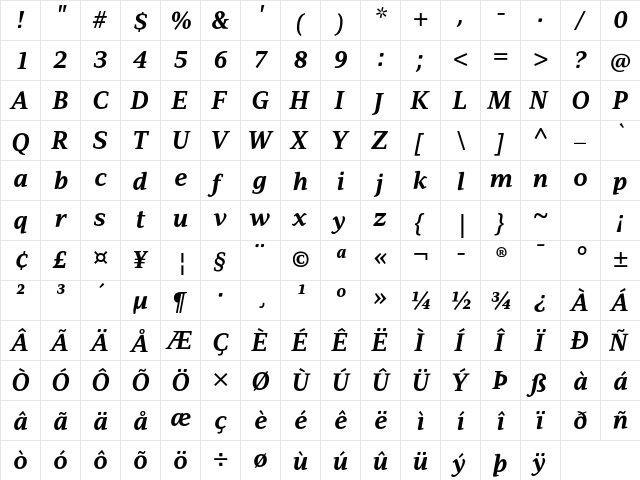
Adamant BG Bold Italic
| Foundry | Vedran Erakovic |
| Designer | Vedran Erakovic |
Design Context for Adamant BG Typeface
Adamant BG is a composed and adaptable typeface that performs quietly and consistently across a wide range of design contexts. The dynamic lean of this cut emphasises speed and emphasis in any layout. Its bold stroke weight gives it real presence on the page.
Pro Tip: Try Adamant BG for annotation and caption copy alongside an upright companion — the contrast in angle creates a dynamic but ordered typographic system.